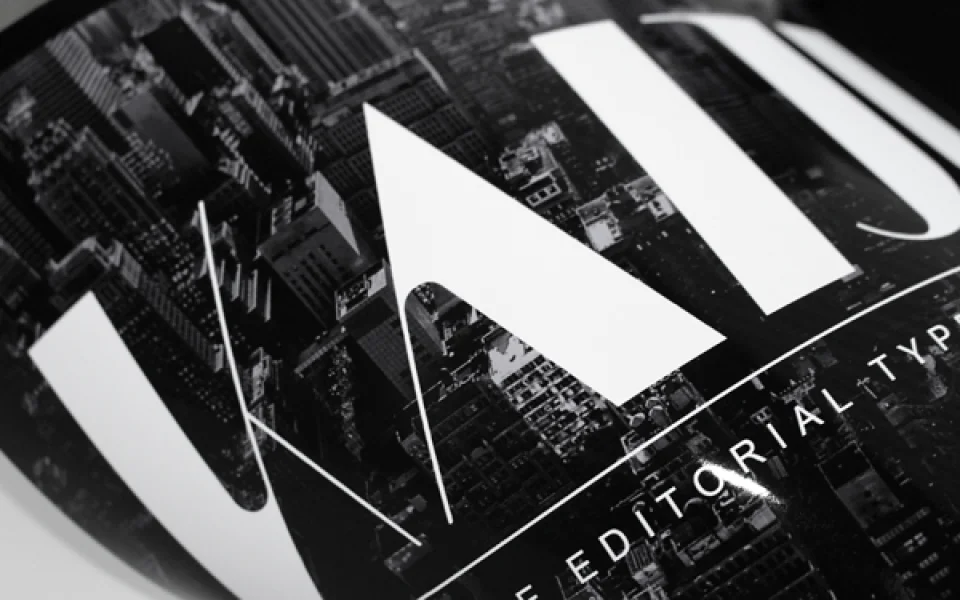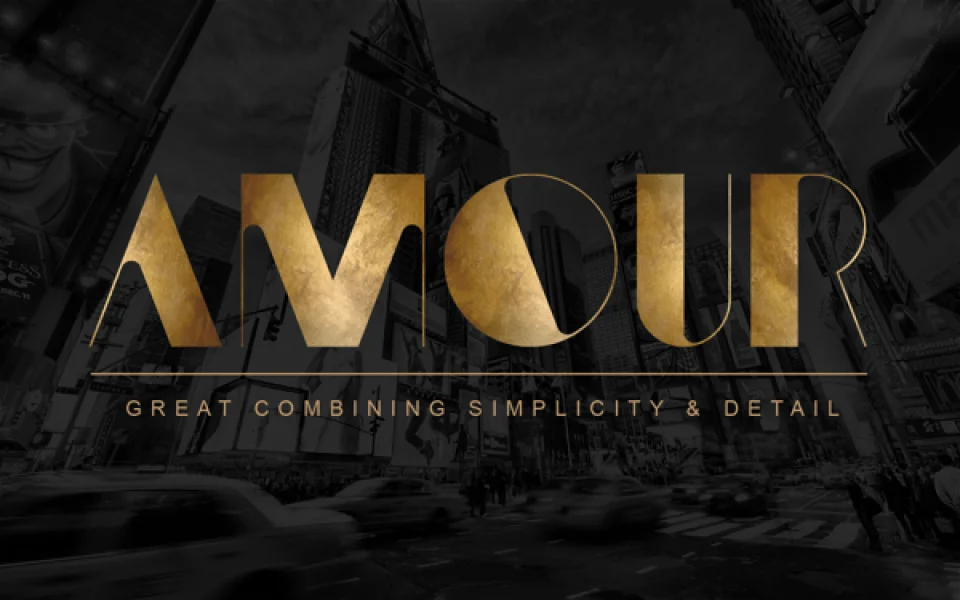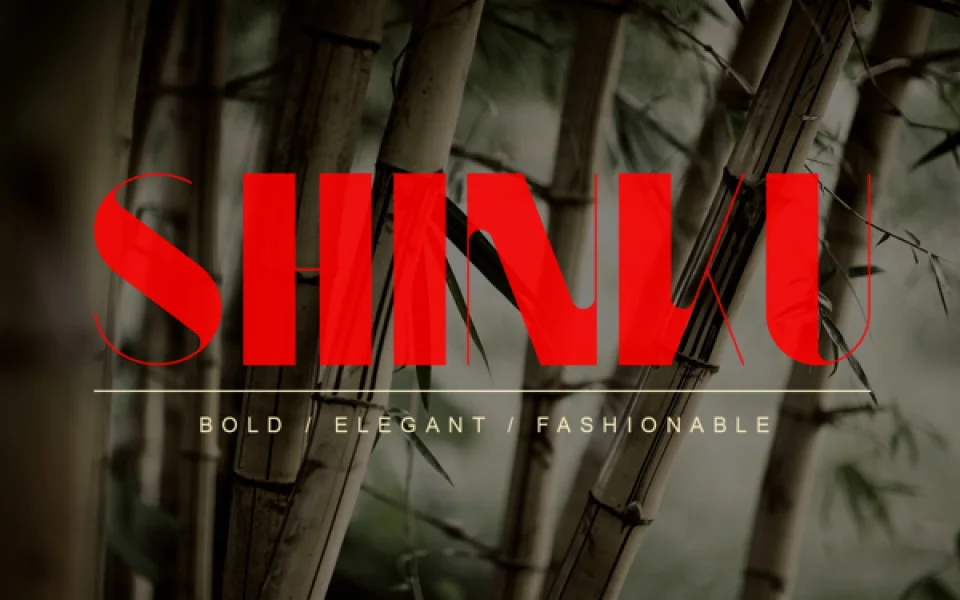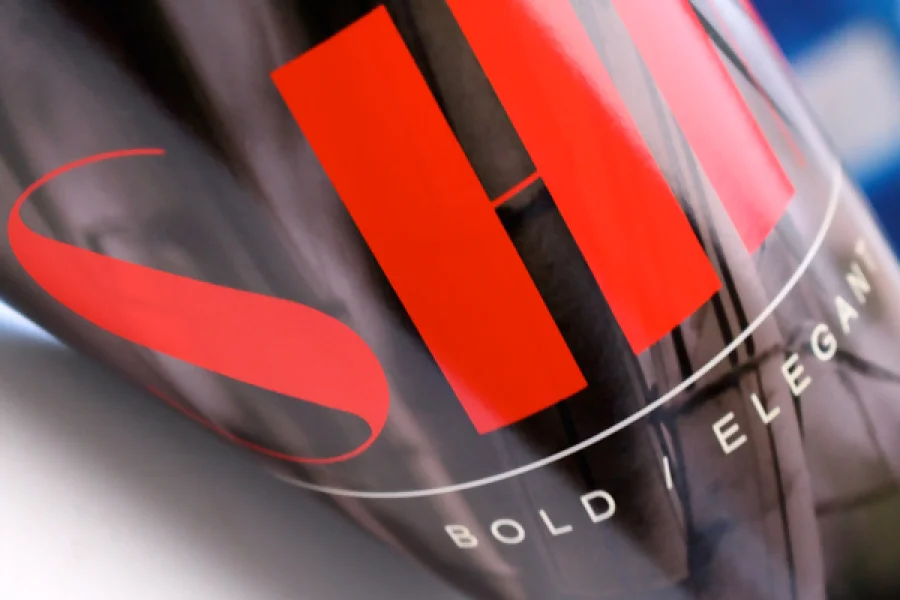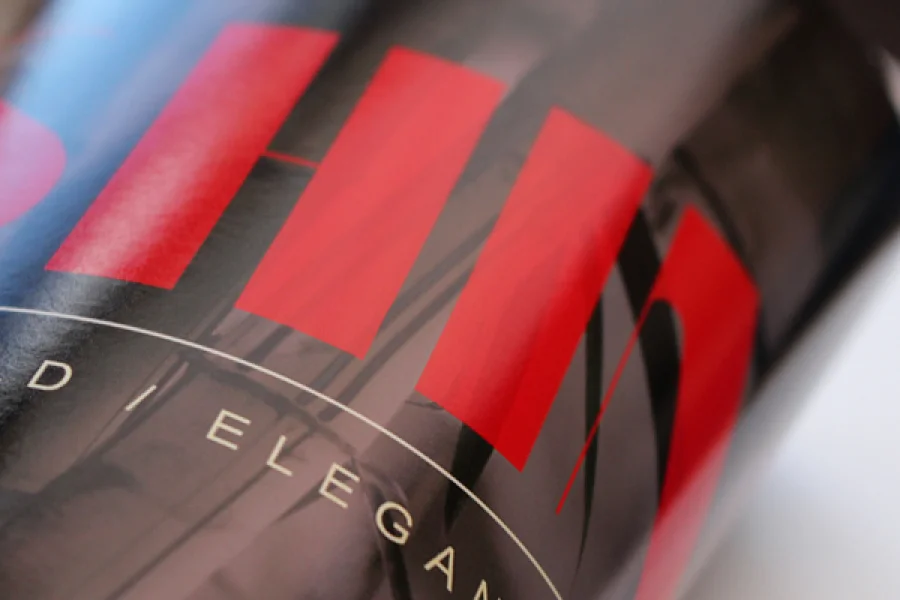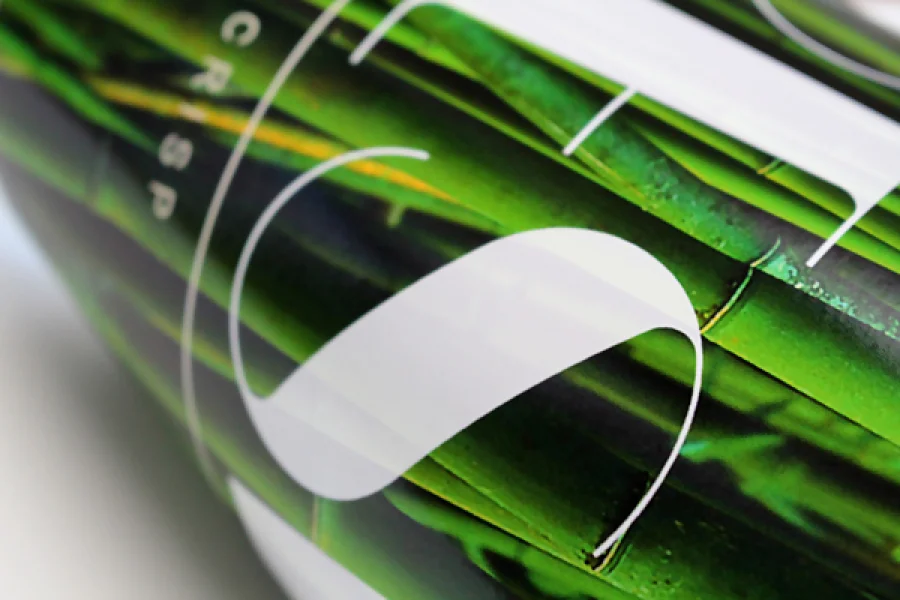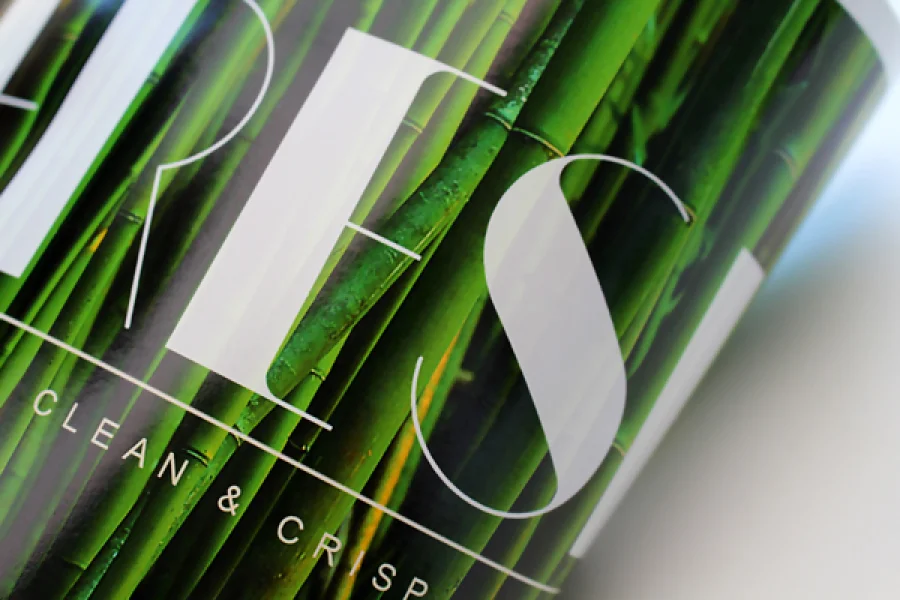
KAIJU is a sans serif typeface that comes in multiple weights (Regular & Bold). Its simplicity makes it a very legible display font, perfect for editorials. The equal emphasis on thick and thin allows for both bold and subtle aesthetics.